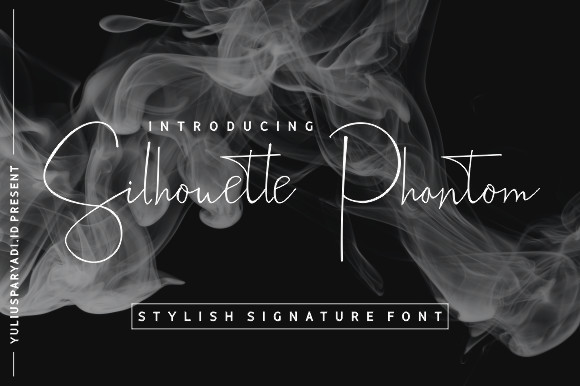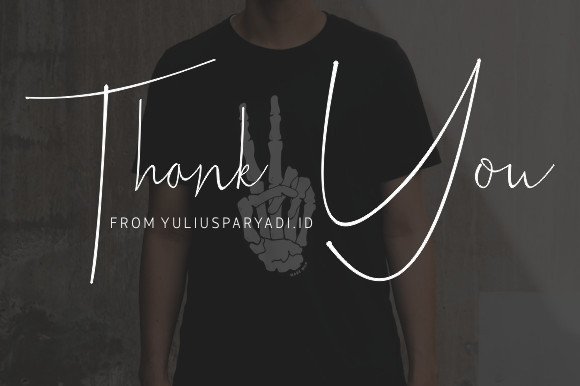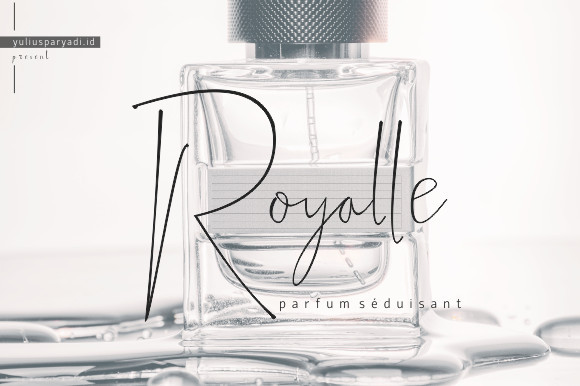
Silhouette Phantom Font
Silhouette Phantom is a natural and modern handwritten font. Fall in love with its incredibly versatile style and use it to create gorgeous wedding invitations, beautiful stationary art, eye-catching social media posts, and much more!